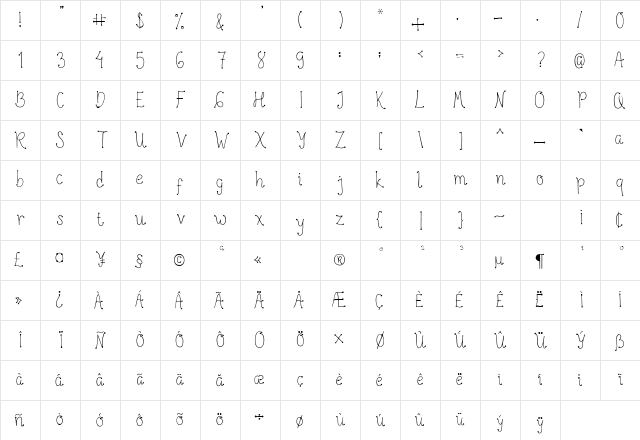
Hunian is a composed and adaptable typeface that performs quietly and consistently across a wide range of design contexts.
Pro Tip: Use Hunian in both headline and body roles to test its range before committing to a single application.